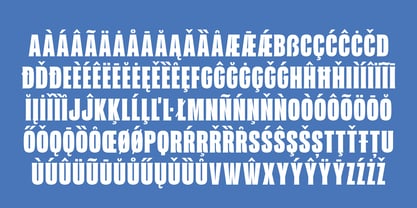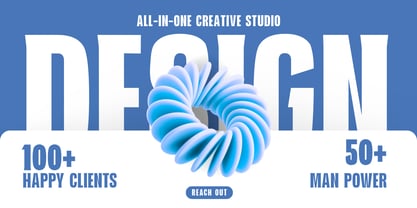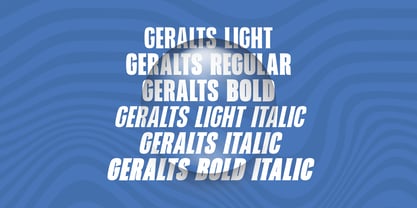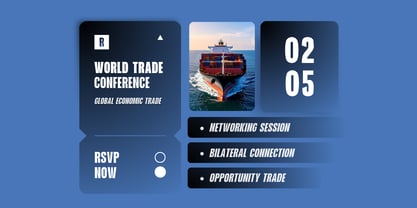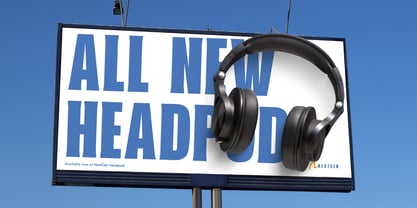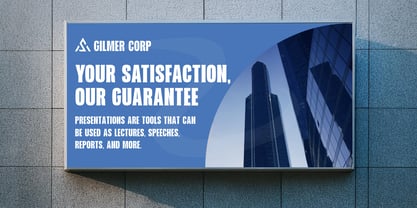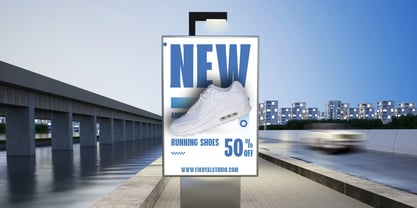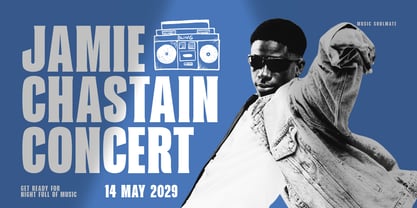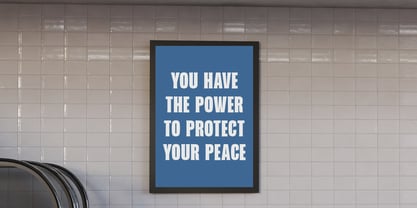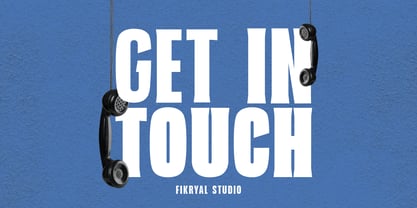
Geralts
by Fikryal
The Geralts Font Family was designed by Muhammad Fikry and published by Fikryal. Geralts contains 6 styles and family package options. More about this family
Geralts is a powerful all-caps condensed display font designed to deliver maximum impact in any visual project. With its sharp proportions, tight spacing, and clean modern edges, this typeface brings a strong and striking presence to your designs — perfect for headlines, posters, logos, sports graphics, editorial layouts, advertisements, and more. This font family comes with six versatile styles: Light, Light Italic, Regular, Italic, Bold, and Bold Italic, giving you flexibility to build visual hierarchy and dynamic typography. Whether you want a sleek minimal look or a bold attention-grabbing title, Geralts delivers consistent style across every weight. Geralts is also equipped with extensive multilingual support, making it ideal for global branding, international campaigns, and multi-language design projects. What’s Included: ✔ Geralts Light ✔ Geralts Light Italic ✔ Geralts Regular ✔ Geralts Italic ✔ Geralts Bold ✔ Geralts Bold Itali ✔ Numerals & punctuation ✔ Extensive multilingual support Perfect For: • Posters & headlines • Logo design • Branding identity • Sports typography • Magazine layouts • Movie titles • Packaging design • Modern advertising • Social media graphics If you have any questions please don’t hesitate to contact me follow my Instagram: fkryall Thank you